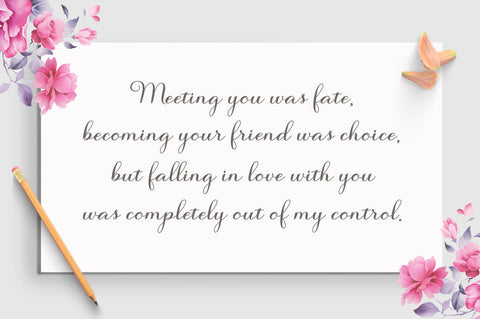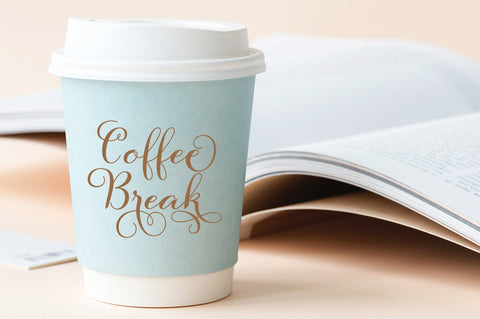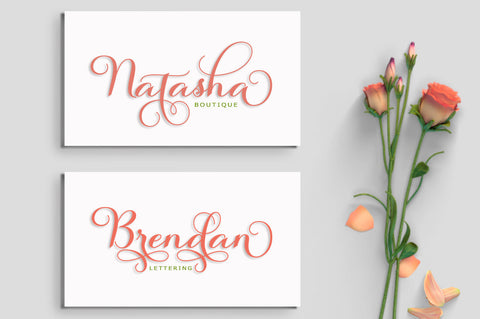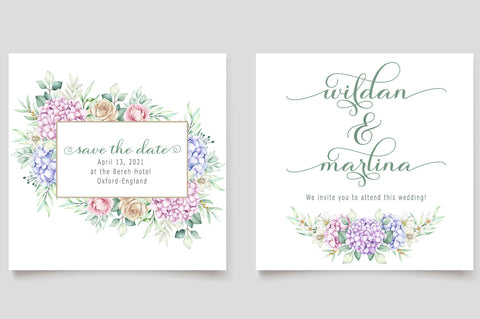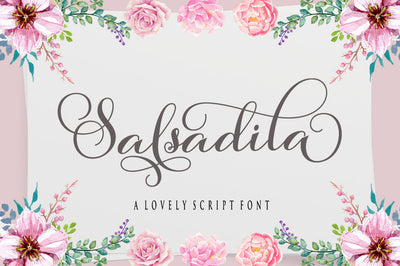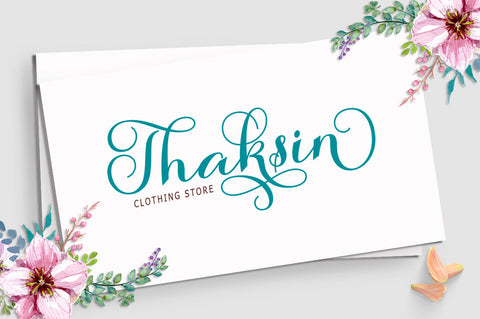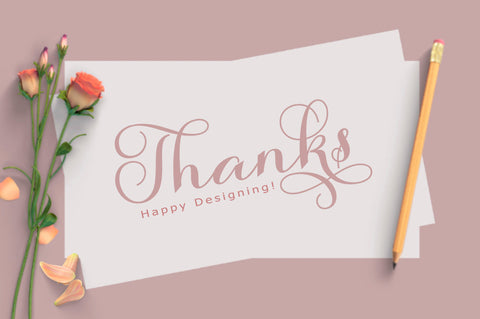
Salsadila Script Font
Salsadila Script is a romantic and sweet calligraphy typeface with characters that dance along the baseline. It has a casual and yet elegant touch. It can be used for various purposes such as logos, wedding invitations, headings, t-shirts, letterhead, signage, lables, news, posters, badges etc.
The fonts include OpenType features with stylistic alternates, ligatures and multiple language support.